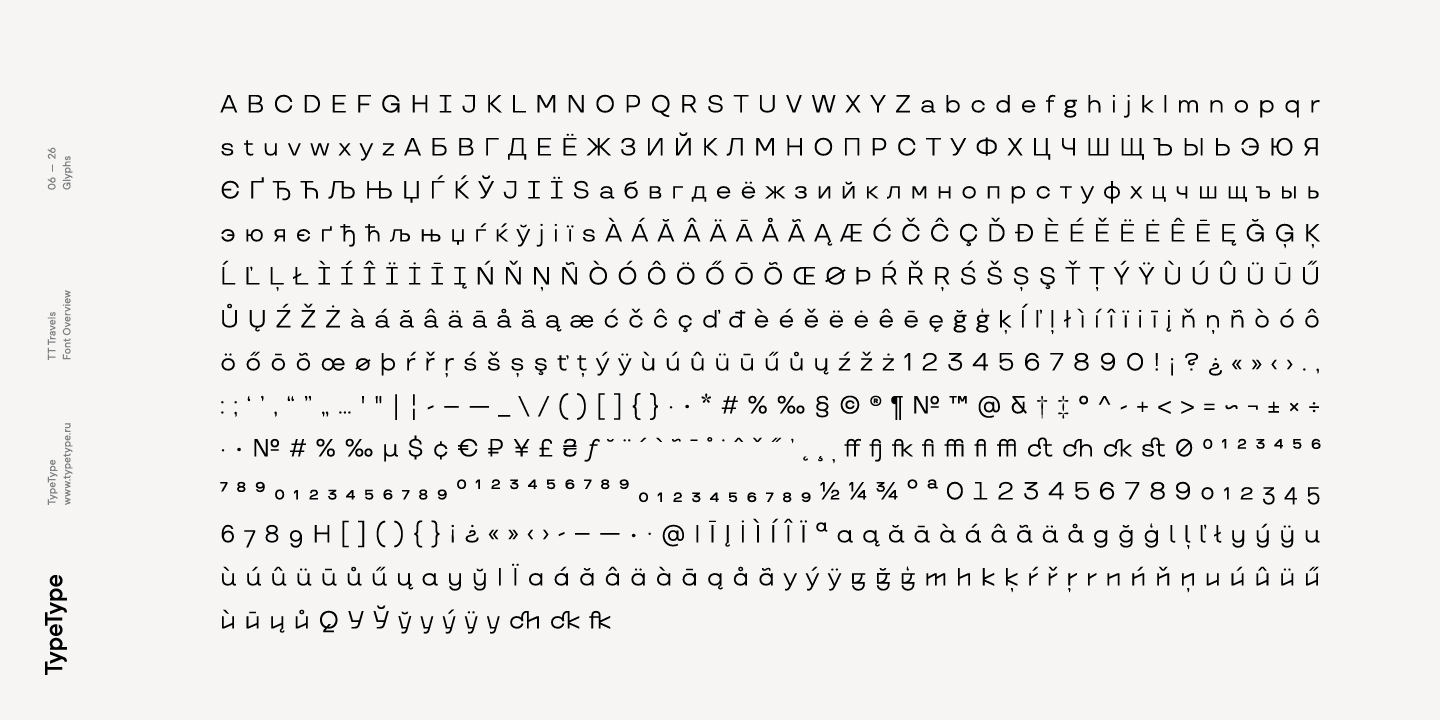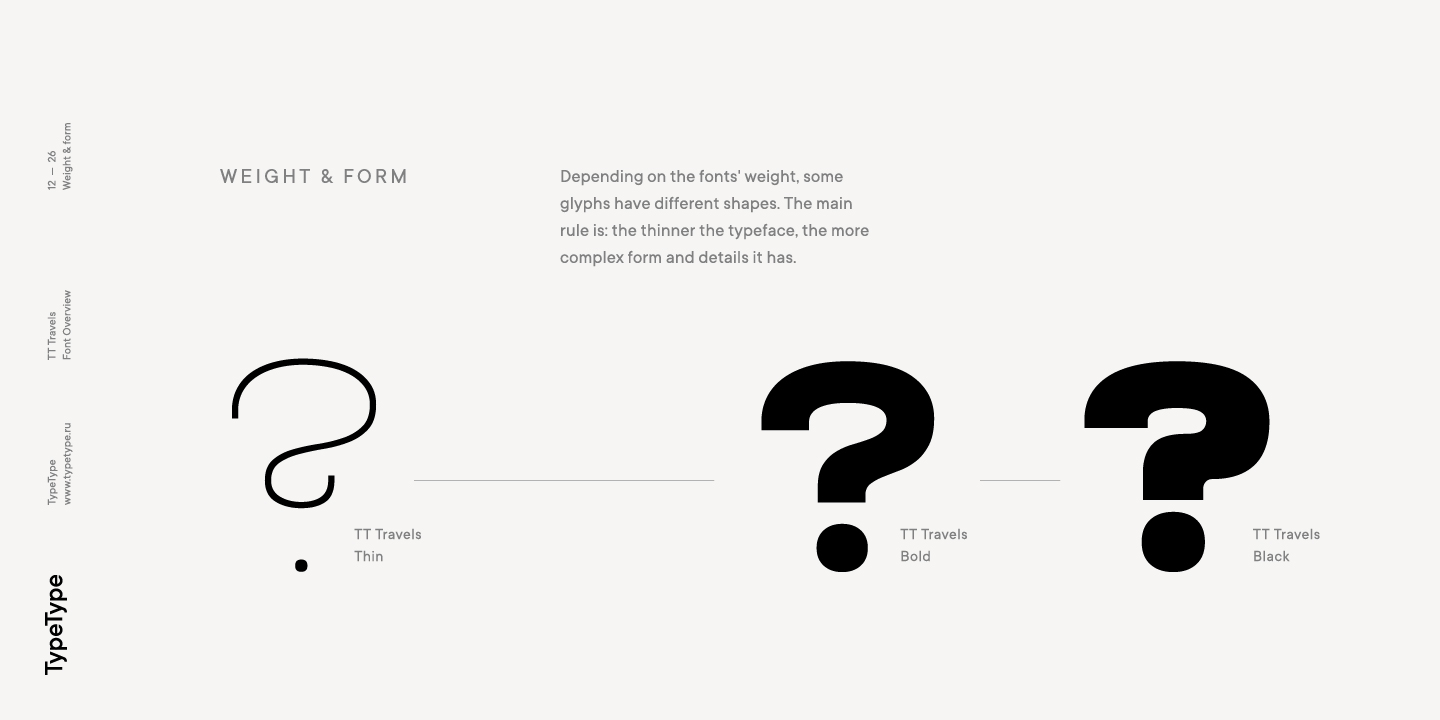
About TT Travels: TT Travels is a geometric grotesque with wide proportions and peculiar shapes of circles and brackets. TT Travels incorporates two stylistic sets which add completely different characters to the type family. The first set ss01 (aka salt) makes the font more humanistic, thanks to the ductal and smooth design of the characters defining the style. And if you want to work with the futuristic version of TT Travels, we recommend that you enable the second set (ss02). In this set, most of the characters defining the style change to characters possessing experimental forms of graphemes.
For the convenience of the TT Travels font family use and for working within a complex text hierarchy, we've created 9 weights (Thin, X-Light, Light, Regular, Medium, DemiBold, Bold, X-Bold, Black) and added 9 true Italics. TT Travels also implements standard and discretionary ligatures, oldstyle figures, slashed zero, and much more. The full list of OpenType features used in TT Travels is: ordn, sups, sinf, numr, dnom, onum, tnum, pnum, liga, dlig, salt, ss01, ss02, case, frac, zero.